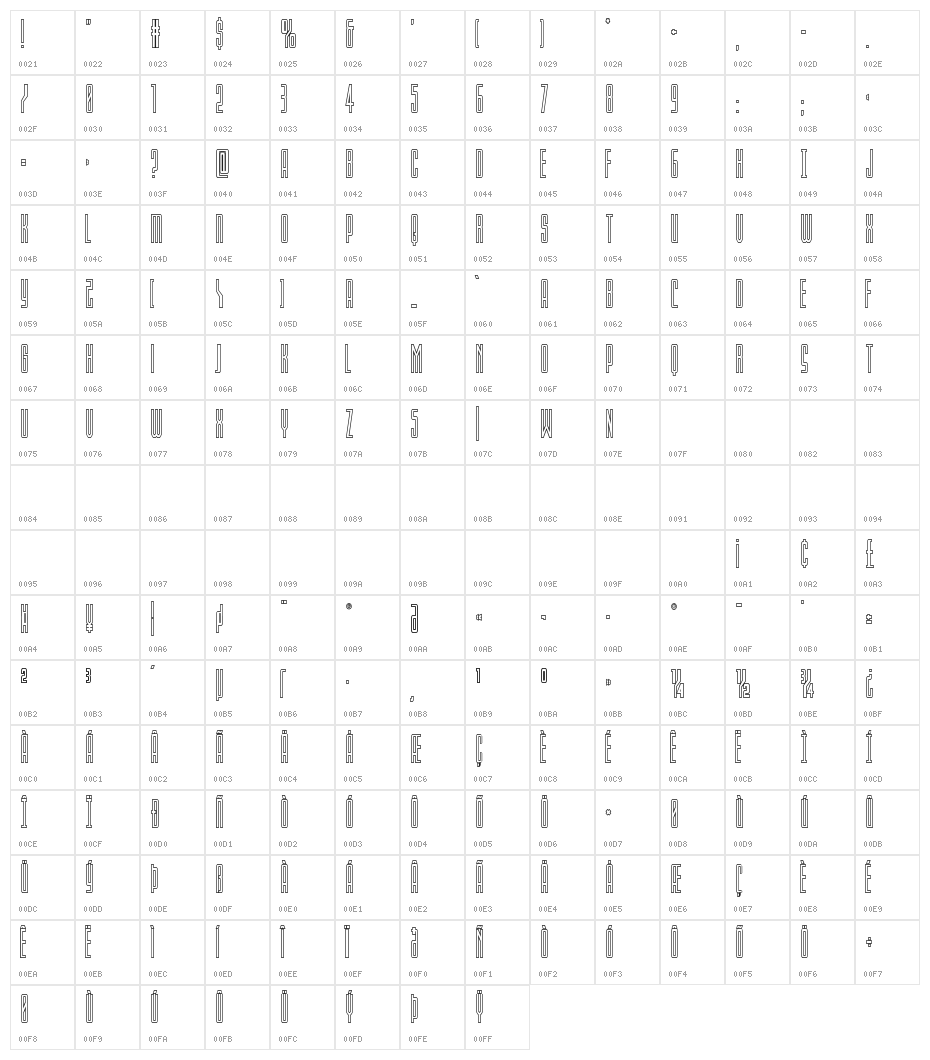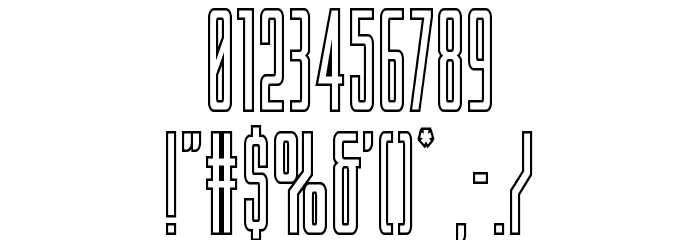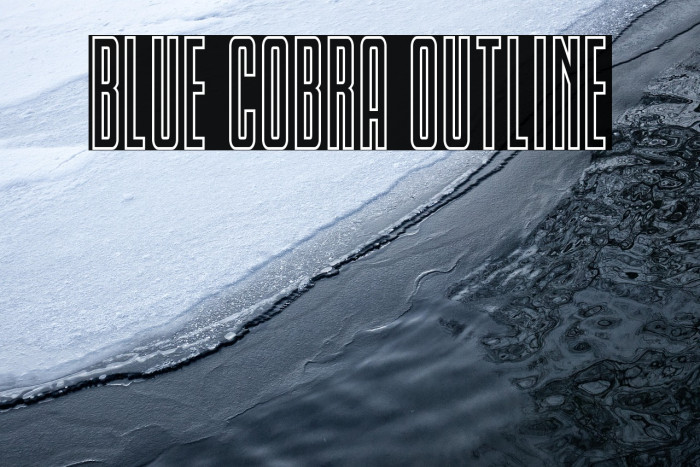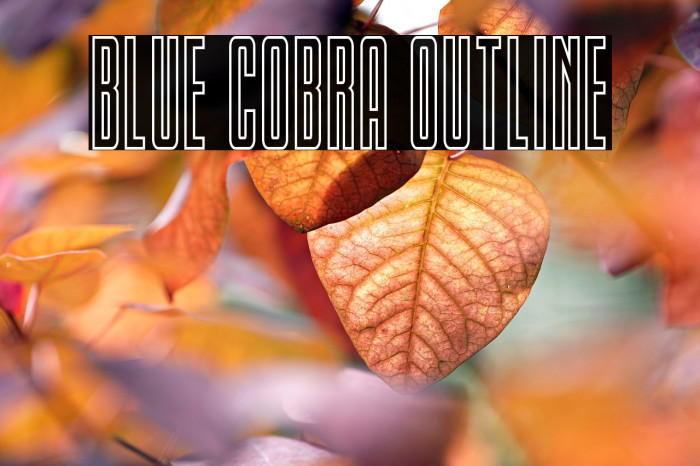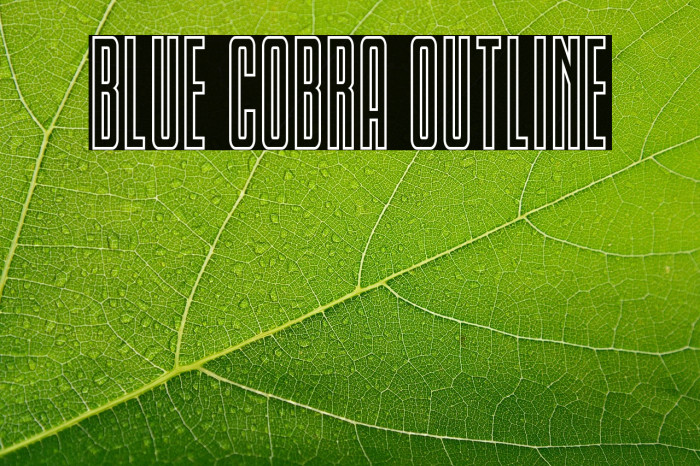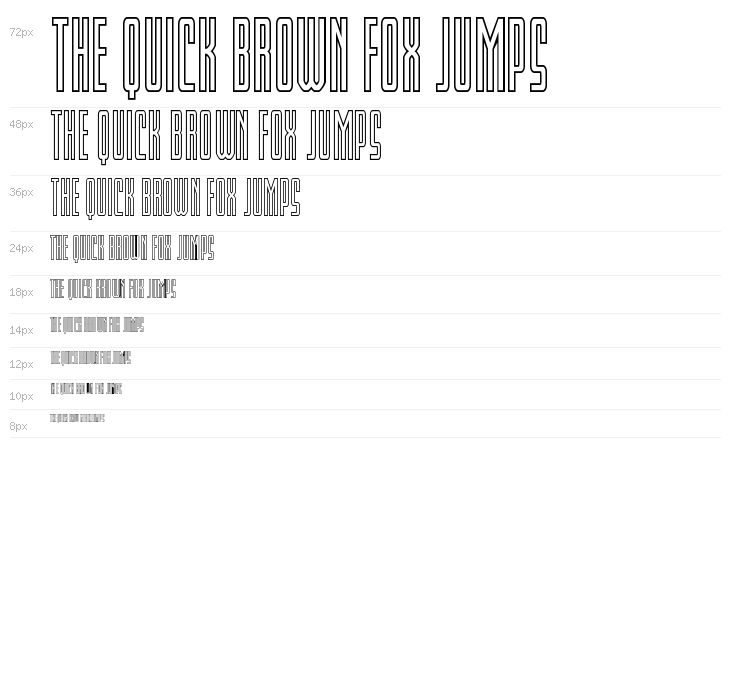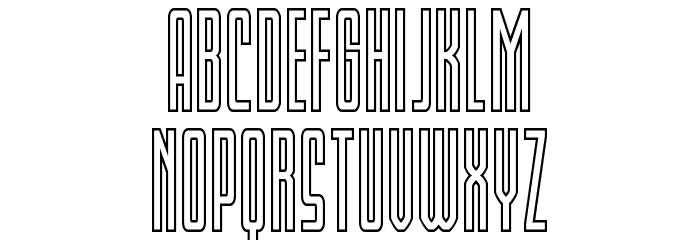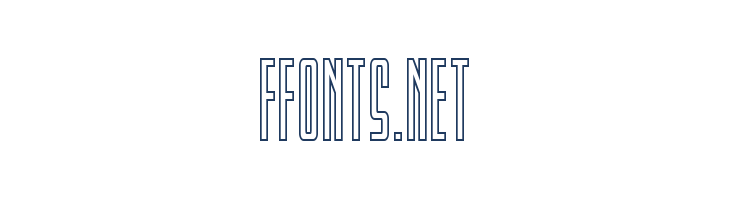
Blue Cobra Outline Font
This font features a bold, outlined style with a geometric and modern aesthetic. The characters are tall and narrow, with sharp angles and clean lines that create a striking visual impact. The uppercase and lowercase letters maintain a consistent height, contributing to a uniform appearance. The numbers and special characters follow the same design principles, ensuring cohesion across all elements. The outline effect adds depth and dimension, making it suitable for eye-catching designs.
| Proposed Projects | Ideal for posters, logos, headlines, and branding materials that require a bold and modern look. |